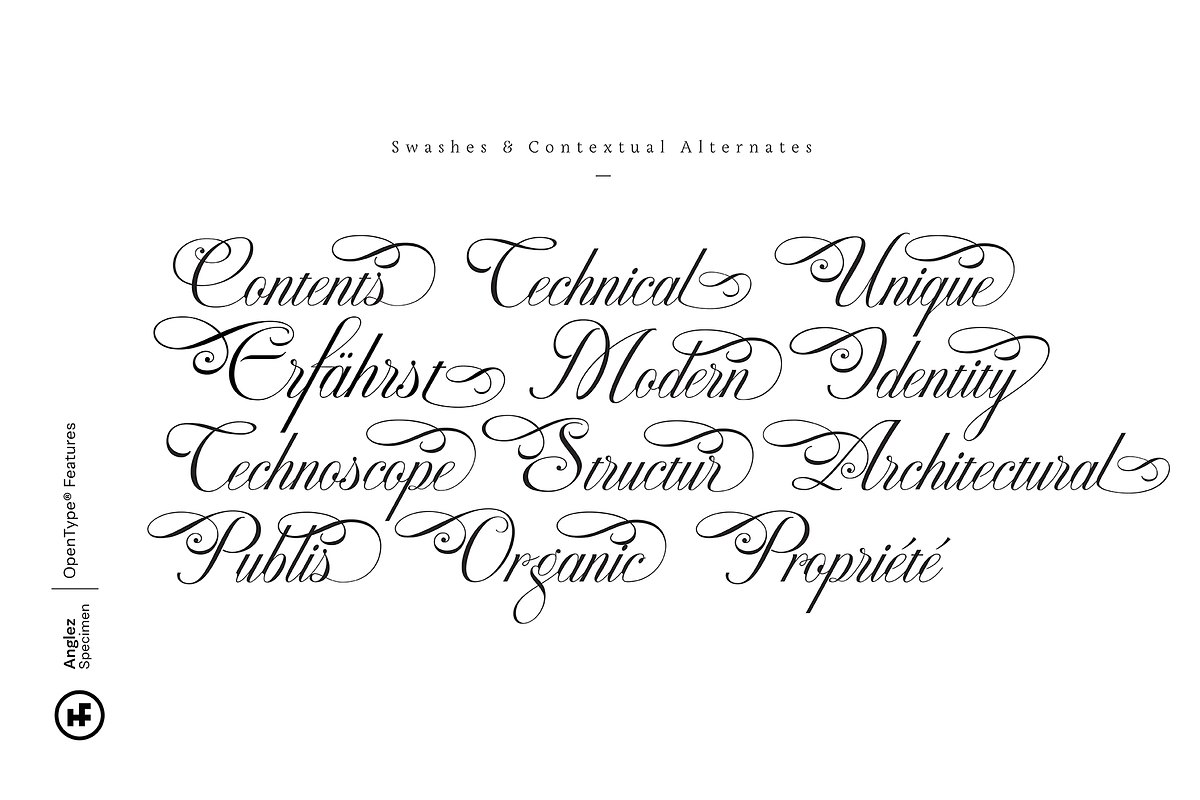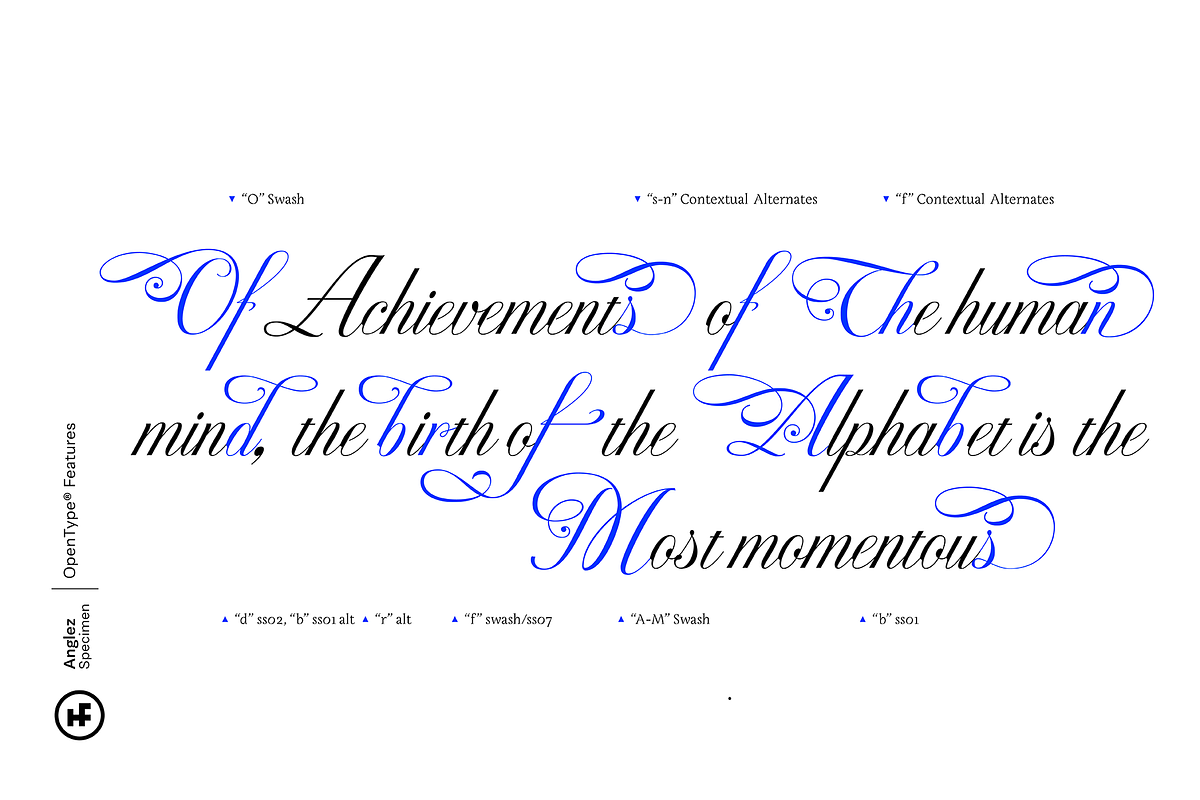
Anglez Script
Anglez was designed by Turkish calligraphy artist Mustafa Eren. It was inspired by the "British Script" style. "Anglez" is designed to meet modern and current needs. It offers user-specific solutions with rich ligatures, swashes, alternative characters, content alternatives, end forms and style sets. Ideal for special day designs, label and invitation designs.